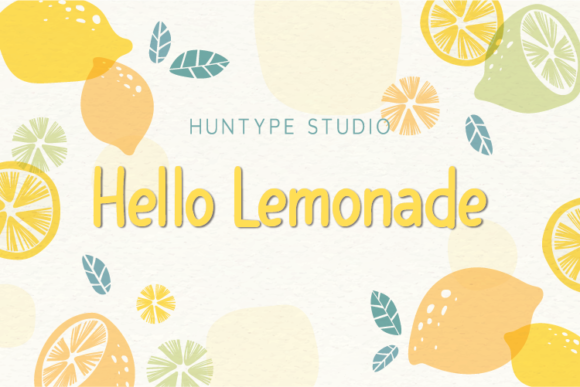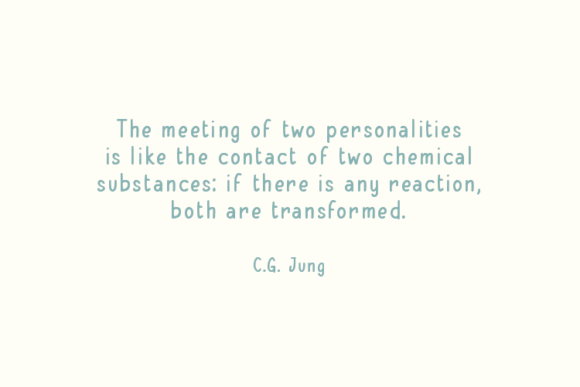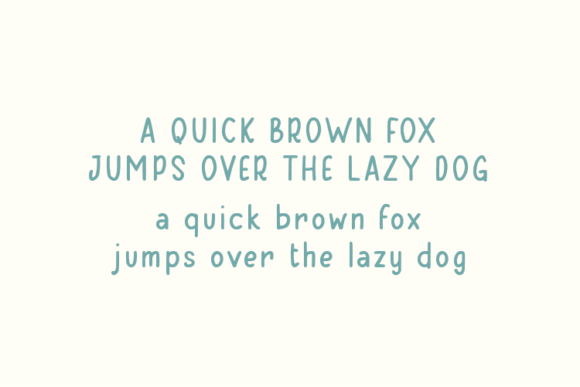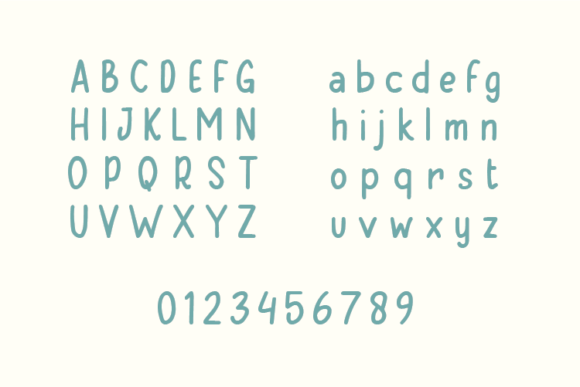
A Refreshing Twist of Creativity
Have you ever sat down with a blank canvas, a blank sheet of paper, or even a blank computer screen, and just let your imagination run wild? For many creatives, this is the moment when the magic happens – the moment when a new idea is born, and a fresh project comes to life. For me, this moment is often accompanied by a glass of cold lemonade on a sunny day, and it’s precisely this feeling of serenity and joy that inspired the creation of the Hello Lemonade Font.
This beautiful and simple handwritten font is designed to evoke a sense of happiness and playfulness, making it the perfect choice for any design project that needs a touch of warmth and personality. With its unique curves and natural feel, the Hello Lemonade Font is a valuable addition to any designer’s toolkit, adding a refreshing twist to their creative work.
Hello Lemonade Font Key Features
- Font Family: Hello Lemonade is a sans-serif font family with 8 styles, including regular, bold, italic, and bold italic.
- Unique Characteristics: Hello Lemonade features a unique blend of modern and playful design elements, including rounded edges and subtle texture, making it perfect for creative and editorial projects.
- Language Support: Supports a wide range of languages, including Latin, Cyrillic, and Greek alphabets, making it a versatile choice for global design projects.
Hello Lemonade Font Review
As a designer, I was excited to dive into the Hello Lemonade Font and see what it had to offer. Here’s my honest take:
- The font’s playful and modern feel is perfect for creative projects and branding.
- The bold and italic weights add a nice touch of sophistication and versatility.
- The font’s high legibility makes it easy to read, even at smaller font sizes.
- The font’s character set is limited, which may be a concern for users who need to typeset complex text.
- The font’s kerning can be a bit wonky at times, which may require some manual adjustments.
Overall, I think the Hello Lemonade Font is a solid choice for designers who need a modern and playful font. While it may have some limitations, its strengths make it a great option for creative projects. With a little tweaking, it can be a real showstopper. I’d definitely consider using it again in the future.
For best results, use “Hello Lemonade Font” in combination with bright, pastel colors to create a playful and whimsical design.
Experiment with different font sizes and styles to add emphasis and create visual hierarchy.
Use “Hello Lemonade Font” for headings, titles, and other display text to create a cohesive and eye-catching design.
“Hello Lemonade Font” is perfect for:
Children
Alternatives to Hello Lemonade Font
Great Vibes Font is a beautiful, elegant script font perfect for creating a warm and inviting atmosphere. It is ideal for wedding invitations, greeting cards, and other special occasions. Compared to Hello Lemonade Font, Great Vibes Font has a more refined and sophisticated feel, making it a great choice for designers who want to add a touch of luxury to their designs.
Luckiest Guy Font
Luckiest Guy Font is a fun, handwritten font that is perfect for adding a playful touch to designs. It is ideal for social media graphics, advertising, and other marketing materials. Compared to Hello Lemonade Font, Luckiest Guy Font has a more casual and relaxed feel, making it a great choice for designers who want to add a lighthearted vibe to their designs.
Cream Soda Font is a stylish, cursive font that is perfect for creating a soft and romantic atmosphere. It is ideal for baby shower invitations, birthday cards, and other special occasions. Compared to Hello Lemonade Font, Cream Soda Font has a more delicate and feminine feel, making it a great choice for designers who want to add a touch of sweetness to their designs.